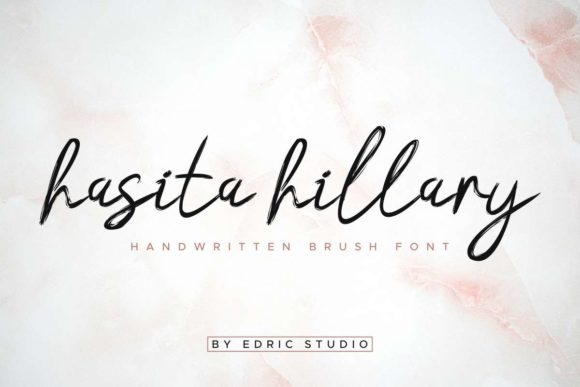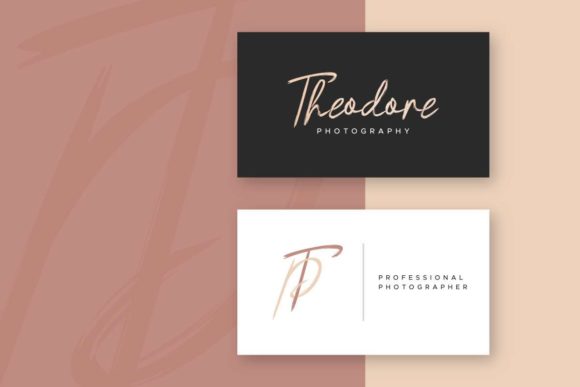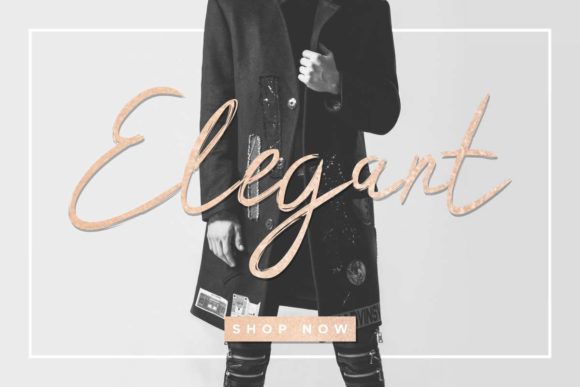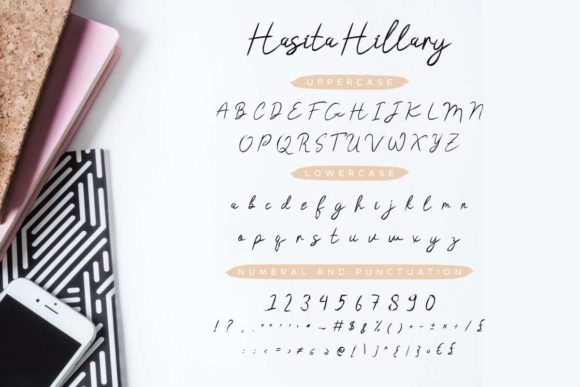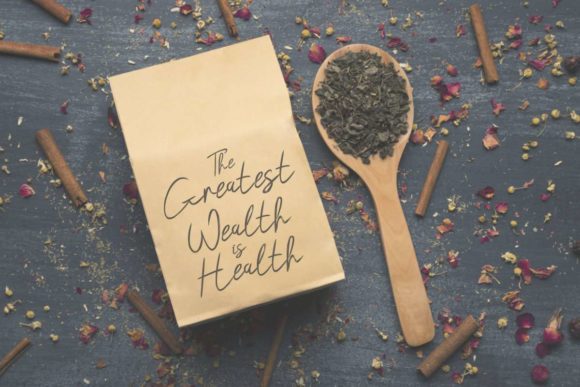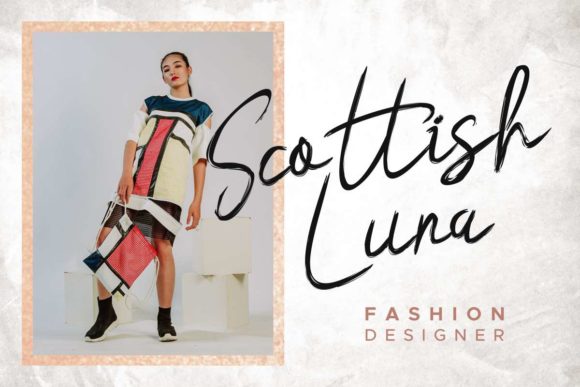
Discover the Charm of Hasita Hillary Font: Elevate Your DIY Projects with a Personal Touch
Are you tired of using the same old fonts for your DIY projects? Do you want to add a personal touch that makes your creations stand out? Look no further than the Hasita Hillary Font, a stunning handwritten font that is sure to capture your heart. In this article, we’ll explore the unique features of this gorgeous font and how it can bring a new level of authenticity and endearment to your projects.
The Story Behind Hasita Hillary Font
Hasita Hillary Font is the result of a beautiful pairing of a brush pen and pencil, carefully crafted to create a truly unique and authentic handwritten font. The result is a font that exudes warmth, personality, and a sense of human touch. Each letter, word, and sentence flows effortlessly, as if written with love and care. The font’s creator has poured their heart and soul into crafting a font that is not only visually stunning but also emotive and expressive.
What Makes Hasita Hillary Font So Special?
So, what sets Hasita Hillary Font apart from other fonts? Here are just a few reasons why this font is a game-changer for designers and crafters:
- Unique and Handwritten: Hasita Hillary Font is a genuine handwritten font, created with a brush pen and pencil. This gives it a distinctive, one-of-a-kind feel that is impossible to replicate with digital fonts.
- Emotive and Expressive: The font’s flowing lines and gentle curves evoke a sense of warmth and personality, making it perfect for projects that require a personal touch.
- Versatile: Whether you’re working on a DIY project, a branding campaign, or a personal blog, Hasita Hillary Font is versatile enough to adapt to any style or theme.
- Easily Readable: Despite its handwritten nature, Hasita Hillary Font is remarkably legible, making it suitable for both headings and body text.
Bringing Your DIY Projects to Life with Hasita Hillary Font
So, how can you use Hasita Hillary Font to elevate your DIY projects? Here are a few ideas to get you started:
- Journaling and Scrapbooking: Add a personal touch to your journal or scrapbook pages with Hasita Hillary Font. Use it to write captions, headings, or even entire stories.
- DIY Stationery and Cards: Create beautiful, one-of-a-kind stationery and cards with Hasita Hillary Font. Perfect for special occasions or everyday correspondence.
- Crafting and Sewing: Use Hasita Hillary Font to label your craft projects, such as quilts, knitted items, or woodwork.
- Branding and Packaging: Add a touch of personality to your branding and packaging with Hasita Hillary Font. Ideal for small businesses, Etsy sellers, or entrepreneurs.
Getting Started with Hasita Hillary Font
Ready to give Hasita Hillary Font a try? Here are some tips to help you get started:
- Experiment with Different Sizes and Styles: Play around with different font sizes, styles, and colors to find the perfect combination for your project.
- Pair with Other Fonts: Combine Hasita Hillary Font with other fonts to create a unique and eye-catching visual effect.
In conclusion, Hasita Hillary Font is a true gem that can add a personal touch to any DIY project. With its unique, handwritten style and emotive expression, this font is sure to capture your heart and inspire your creativity. Whether you’re a designer, crafter, or simply someone who loves to create, Hasita Hillary Font is a must-have in your font collection. So why wait? Download Hasita Hillary Font today and bring a new level of authenticity and endearment to your projects!